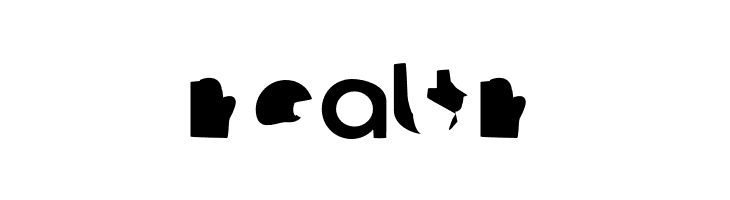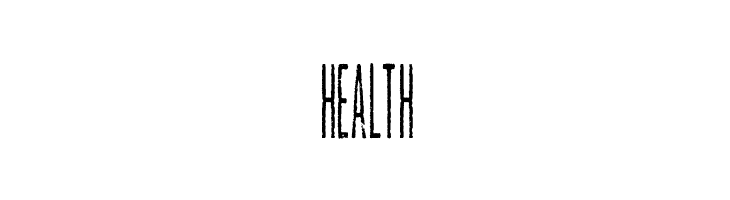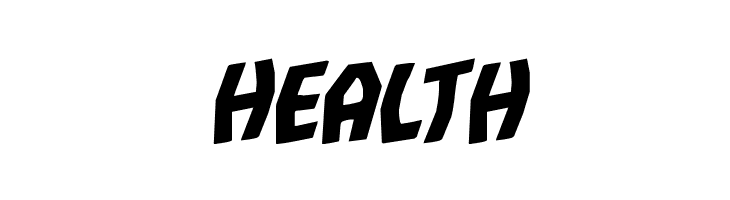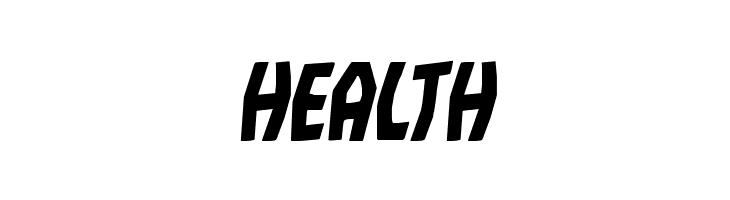
( Fonts by Bumbayo Font Fabrik )
A tall, narrow font with a distressed, vintage texture.
A bold, angular font with a geometric and edgy style.
A bold, three-dimensional font with a playful, edgy style and thick black outlines.
A bold, staggered, italicized font with an edgy, modern style.
A bold, jagged font with a horror-inspired, hand-drawn style.
Bold, condensed, and italic with sharp angles and dynamic style.
A bold, angular font with a dynamic slant, perfect for impactful designs.